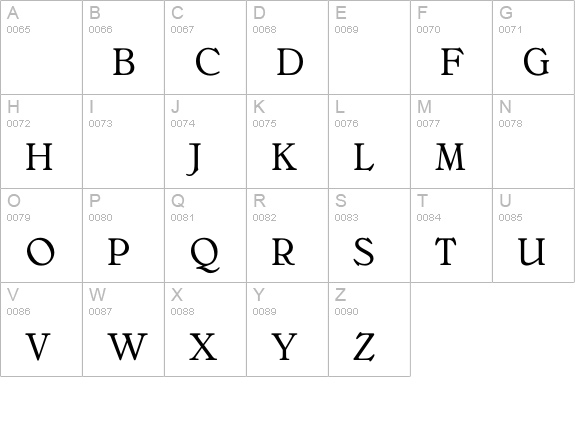
BelliniOriginalExpert Font Details
Introducing the BelliniOriginalExpert font, a timeless typeface that exudes elegance and sophistication. With its delicate strokes and graceful curves, this font is perfect for adding a touch of class to any design project. BelliniOriginalExpert is a versatile font that can be used for a wide range of applications, from branding and packaging to invitations and signage. What sets BelliniOriginalExpert apart is its exceptional legibility and readability, making it a favorite among designers and typographers alike. Whether you're working on a print or digital project, this font will ensure that your message is conveyed with clarity and style. And the best part? BelliniOriginalExpert is available for free download at FontsMarket.com. So go ahead and elevate your designs with this stunning font today!